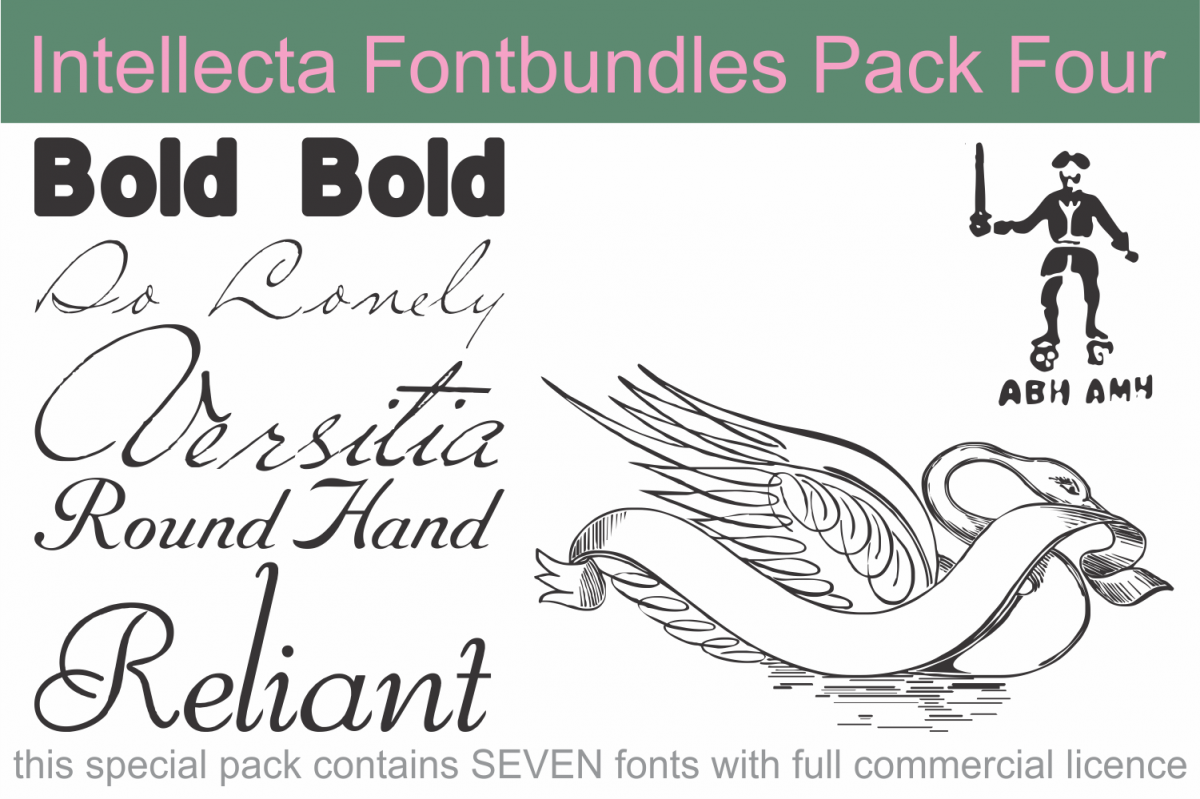
Intellecta Fontbundles Pack Four
So Lonely, Versitia, Reliant (three script fonts)
Pirates, Penmanship Birds (dingbats)
Roundhand and Bold Bold (an EXTRABOLD font)